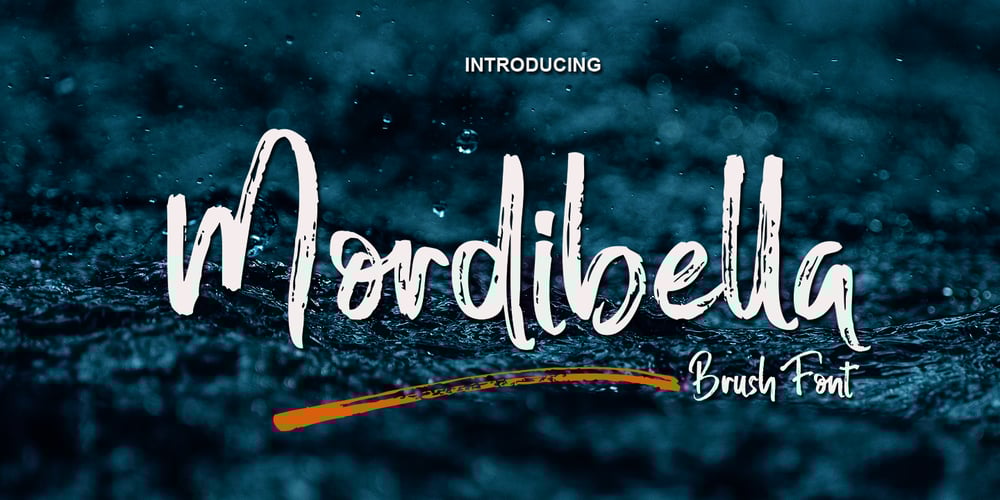
Mordibella Font Family was designed by Khaled and published by Akifatype. Mordibella contains 1 styles and family package options. Mordibella is textured brush font, a contemporary approach to design, with a handmade natural and irregular baseline. Suitable for use in title design. Such as apparel, invitations, book tittles, stationery design, quotes, branding, logos, greeting cards, t-shirts, packaging design, posters and more.